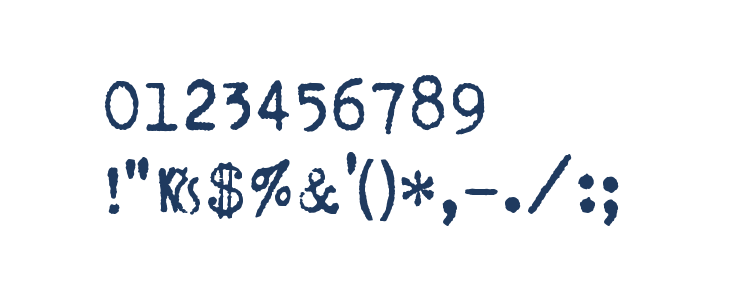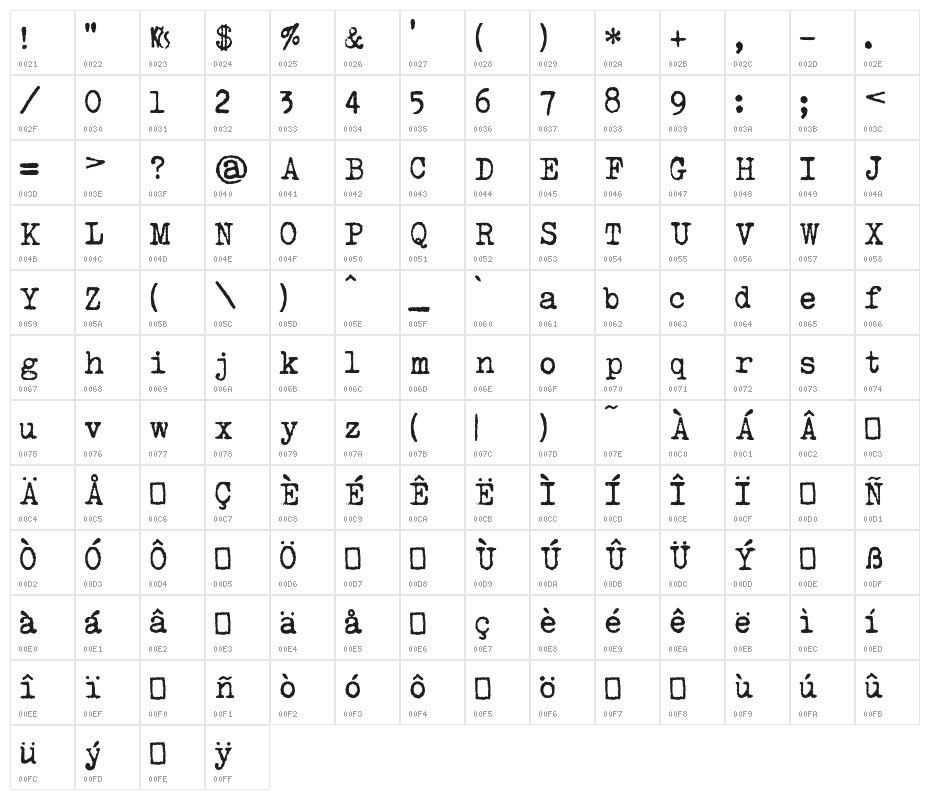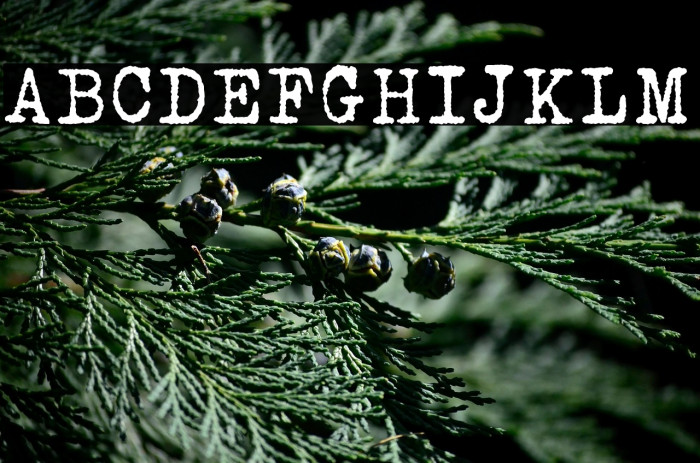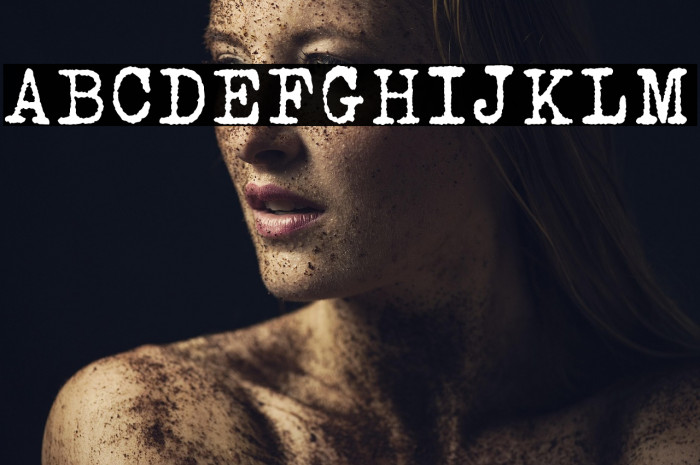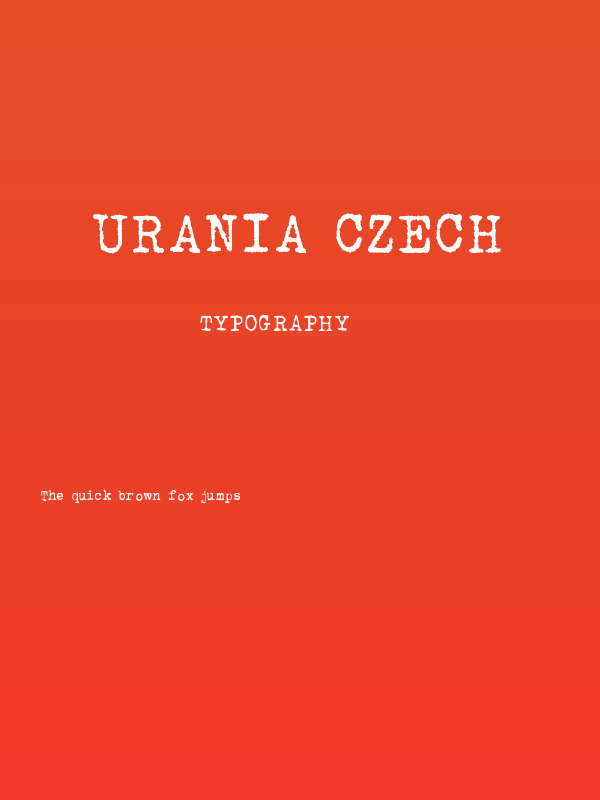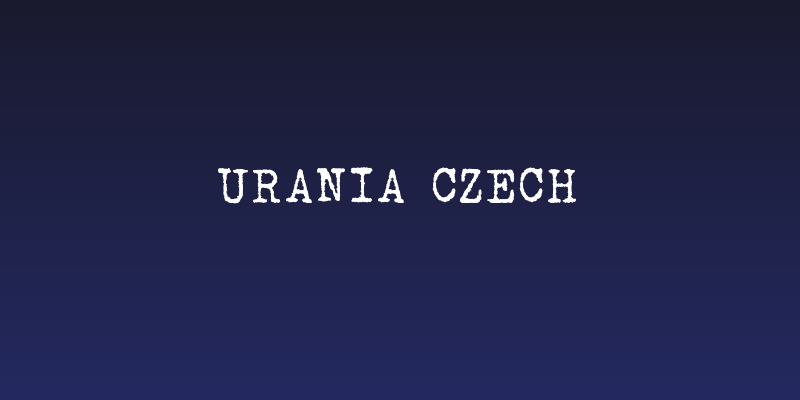
Urania Czech Font
Urania Czech Description
This typeface exudes a vintage, typewriter-inspired aesthetic with a distinct, textured appearance. Each character is slightly irregular, giving it an authentic, mechanical feel reminiscent of old typewritten documents. The uppercase and lowercase letters maintain a consistent style, with rounded edges and a slightly distressed look that adds character and charm. Numerals and special characters follow the same design principles, ensuring a cohesive appearance across all text. The font's unique style makes it ideal for projects that require a retro or nostalgic touch.
| Use Case | Headlines, Logos, Decorative text |
| Proposed Projects | Ideal for retro-themed designs, vintage posters, typewriter-style documents, and creative projects that require a nostalgic touch. |